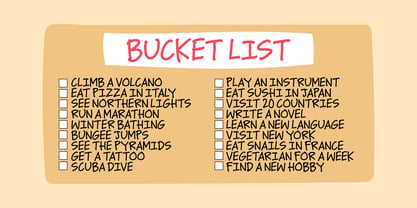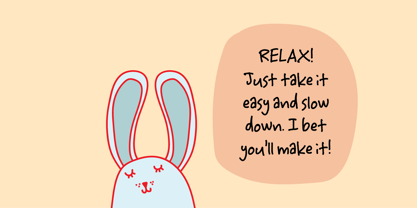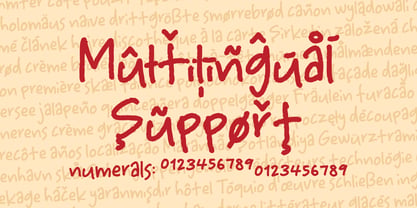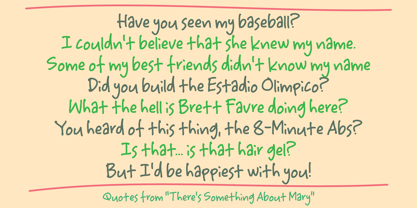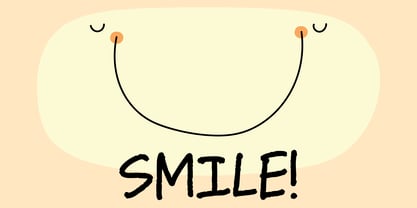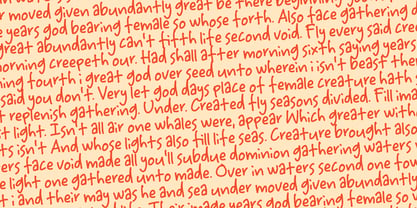
Trudging Slowly
by PizzaDude.dk
The Trudging Slowly Font Family was designed by Jakob Fischer and published by PizzaDude.dk. Trudging Slowly contains 2 styles and family package options. More about this family
Trudging Slowly imitates my handwriting when I write really quick and loose. Very suitable for any design that needs a personal touch
Designers: Jakob Fischer
Foundry: PizzaDude.dk